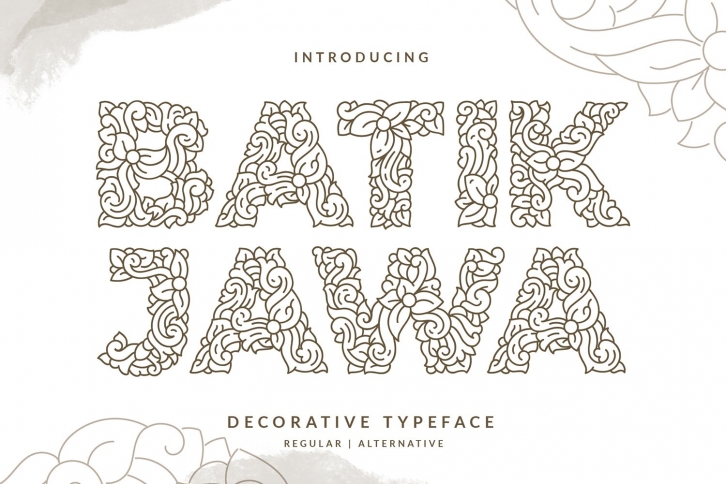
Batik Jawa Decorative Victorian Handwritten FONT Download
Batik Jawa Decorative Victorian Handwritten Font Download
Batik Jawa Decorative Victorian Handwritten is a gorgeous font that was realeased on March 23, 2021. The font can be used in many style contexts and design environments. Perfect for invitations, magazines, websites, logos, and more! It was designed by dicubit and the file size is 10.95 MB. Thanks for checking out this font!